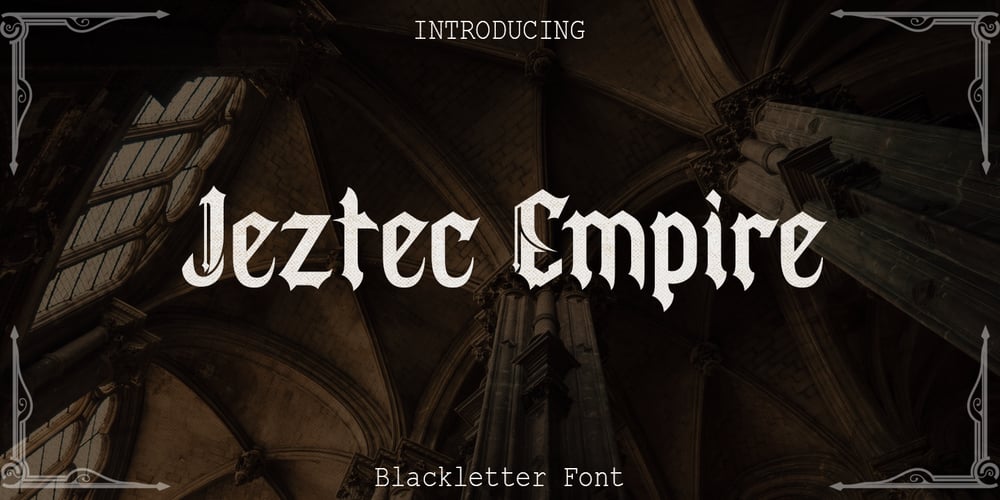
Jeztec Empire Font Family was designed by RoninDesign and published by Ronin Design. Jeztec Empire contains 1 styles and family package options. Jeztec Empire is an unique blackletter style, this font will give you stunning design. Jeztec Empire font is ideal for logo design, labels, posters or pretty much anything else that requires a unique touch.